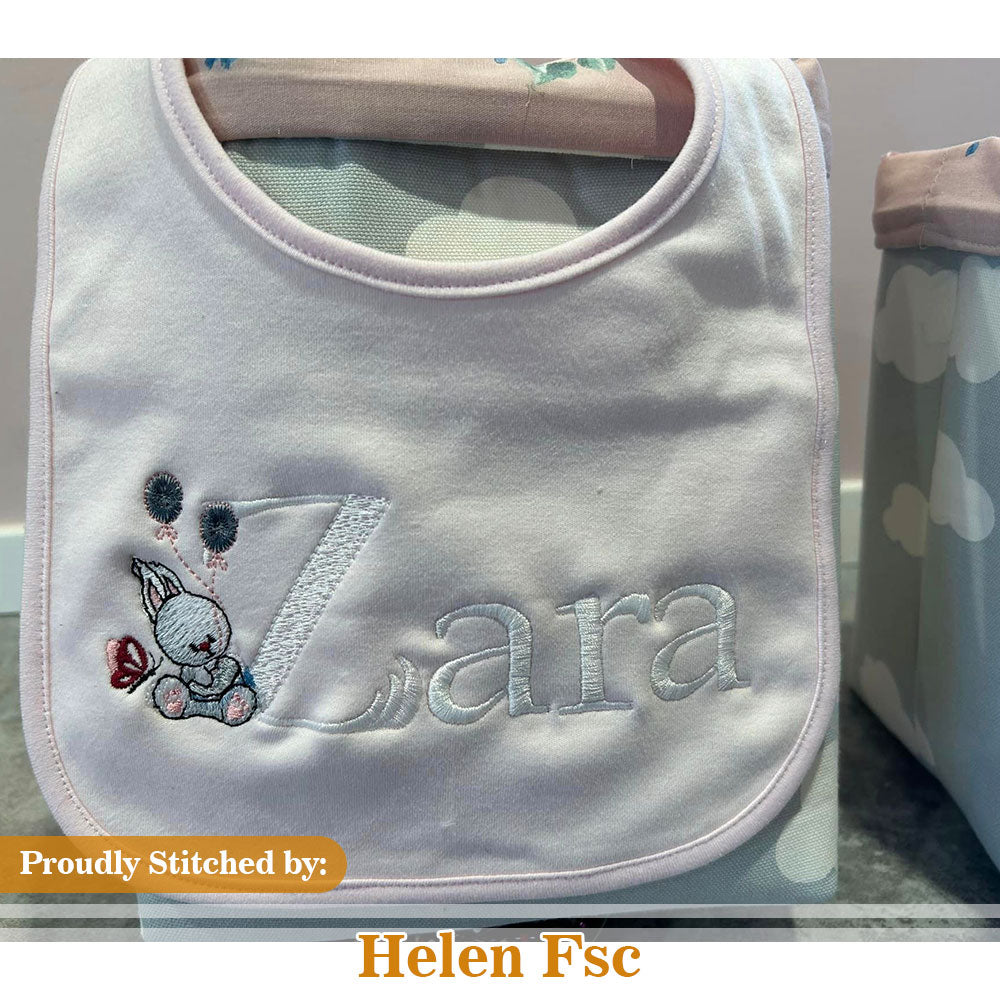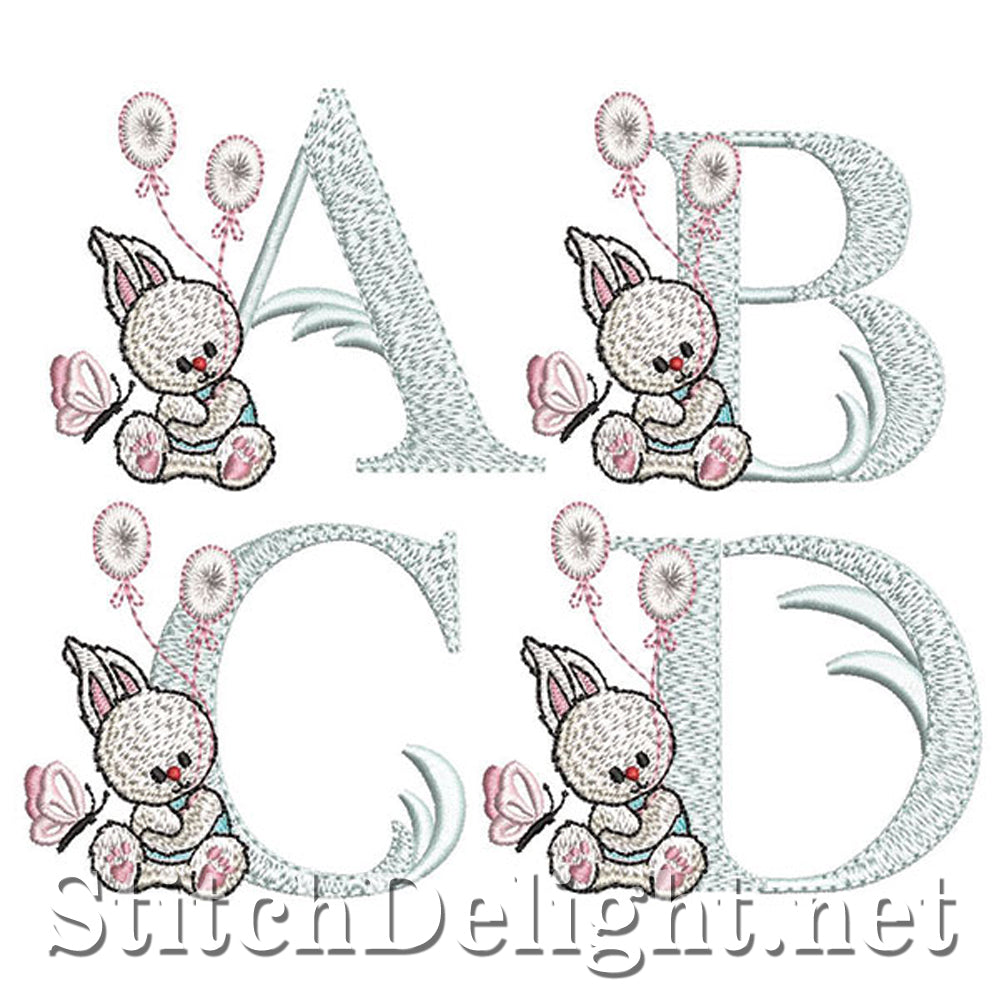
This cute bunny font is 2.6 inch / 67mm in height and coordinating small letters that would perfectly work with these are the SDS1244 Annie Font) - BX format included in the zip